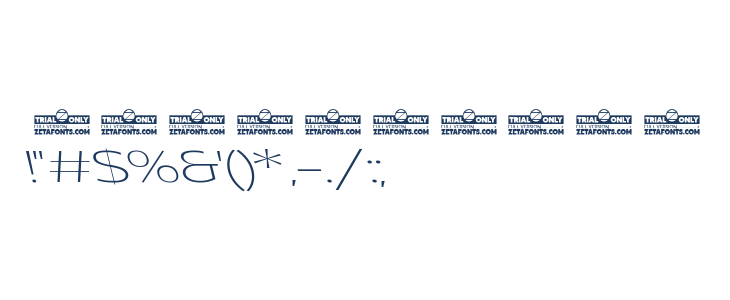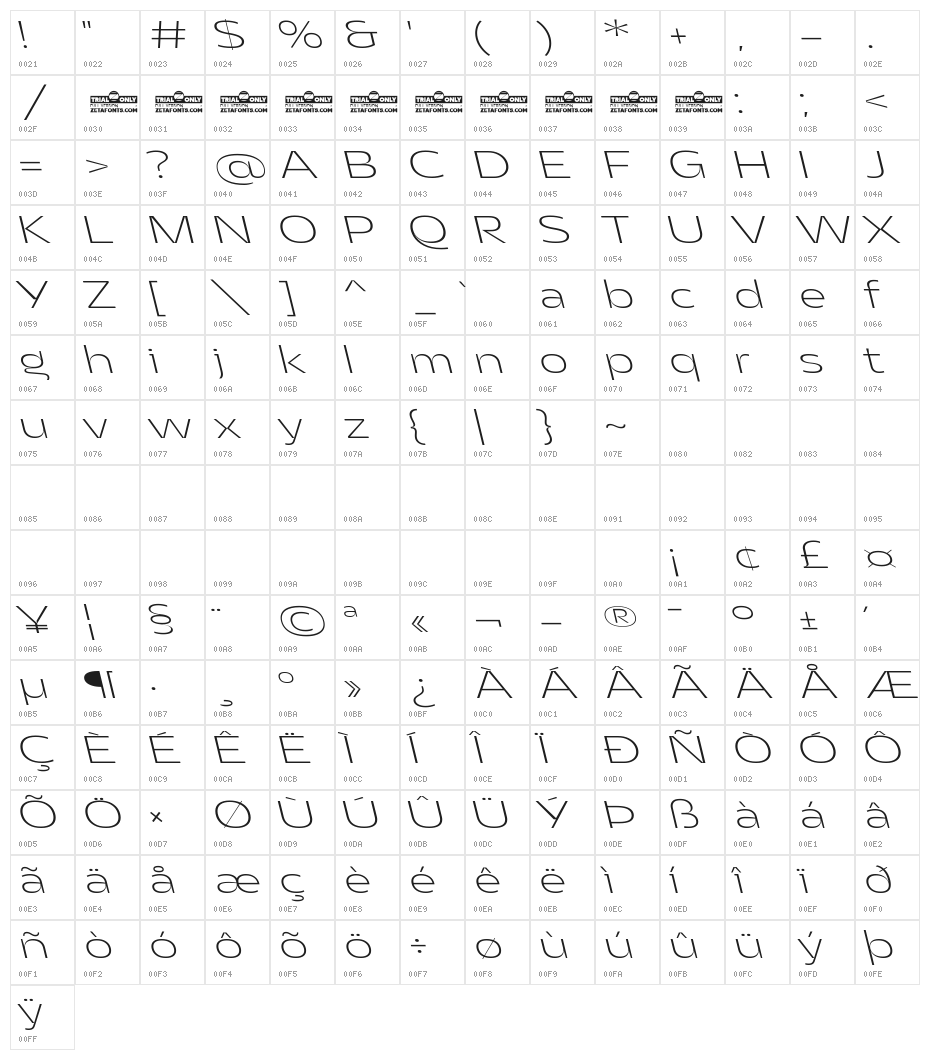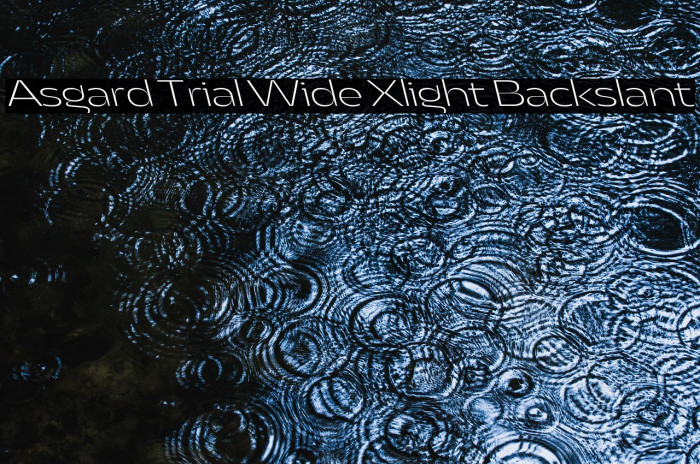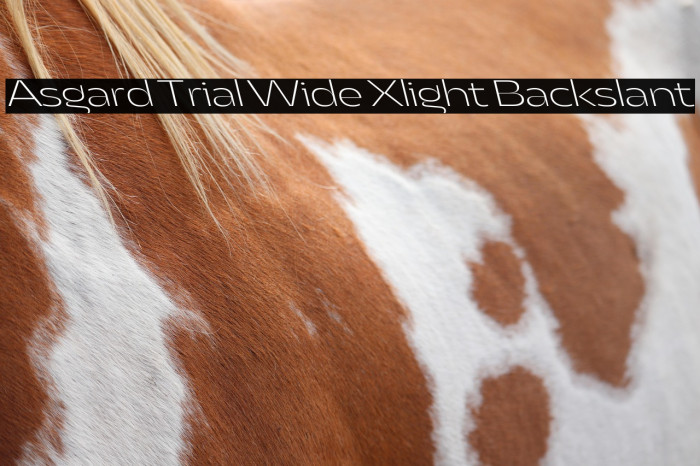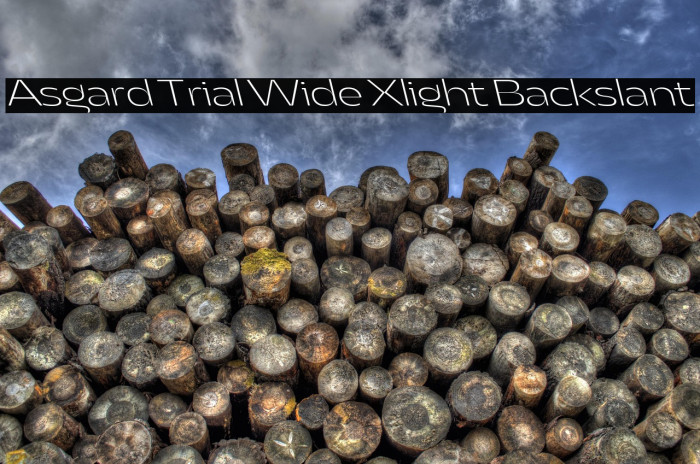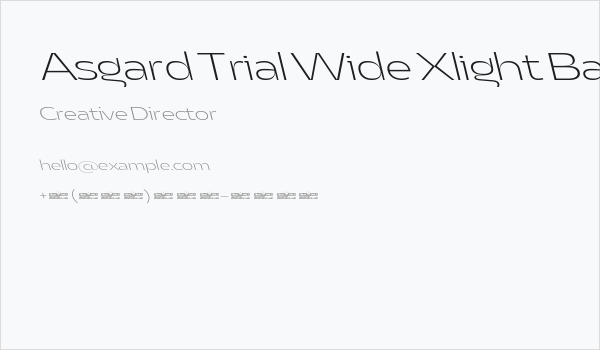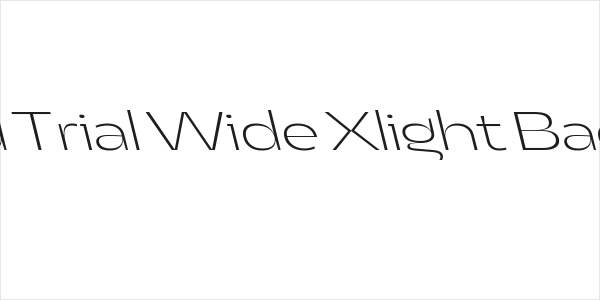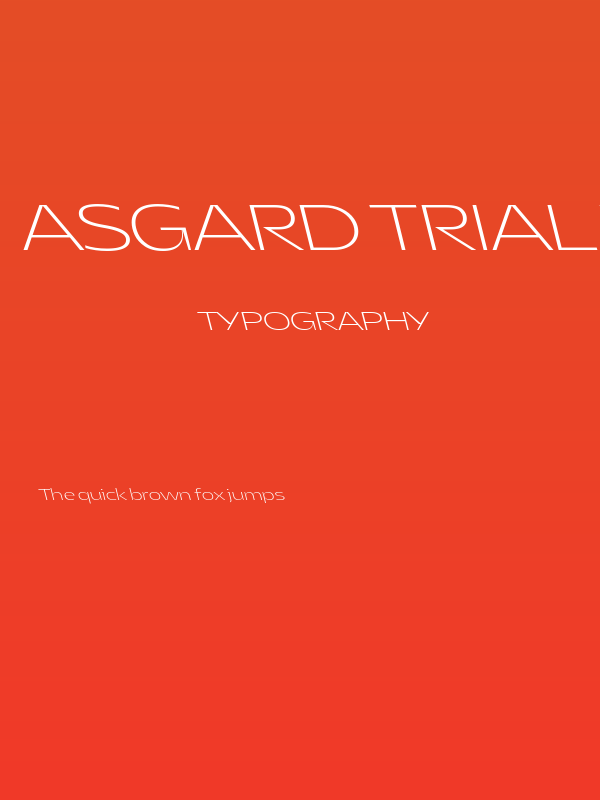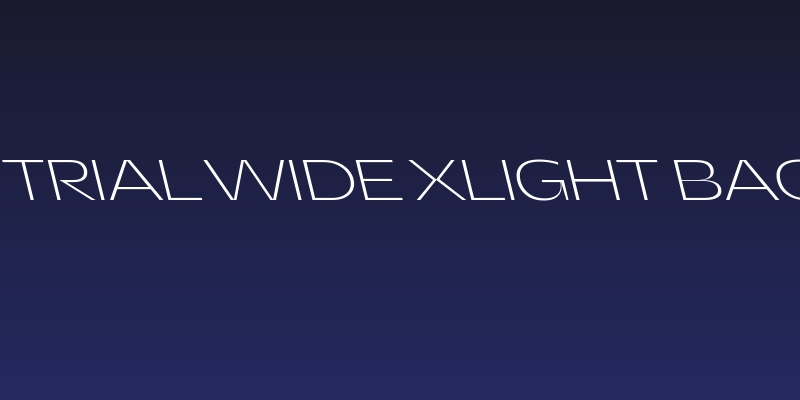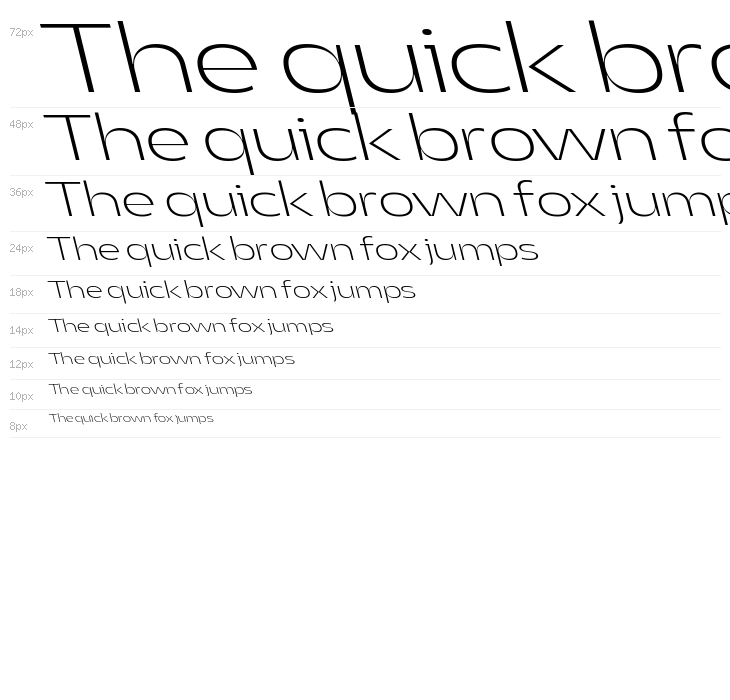
Asgard Trial Wide Xlight Backslant Font
Asgard Trial Wide Xlight Backslant Description
This font features a sleek and modern design with a distinctive backslant, giving it a unique and dynamic appearance. The characters are crafted with an extra-light weight, contributing to an airy and open feel. The wide letterforms enhance readability while maintaining a contemporary aesthetic. The font includes a full set of uppercase and lowercase letters, numerals, and a variety of special characters, making it versatile for various design needs. Its clean lines and minimalistic style make it suitable for projects that require a modern and sophisticated look.
| Proposed Projects | Ideal for branding, editorial design, and digital interfaces that require a modern and sleek aesthetic. |